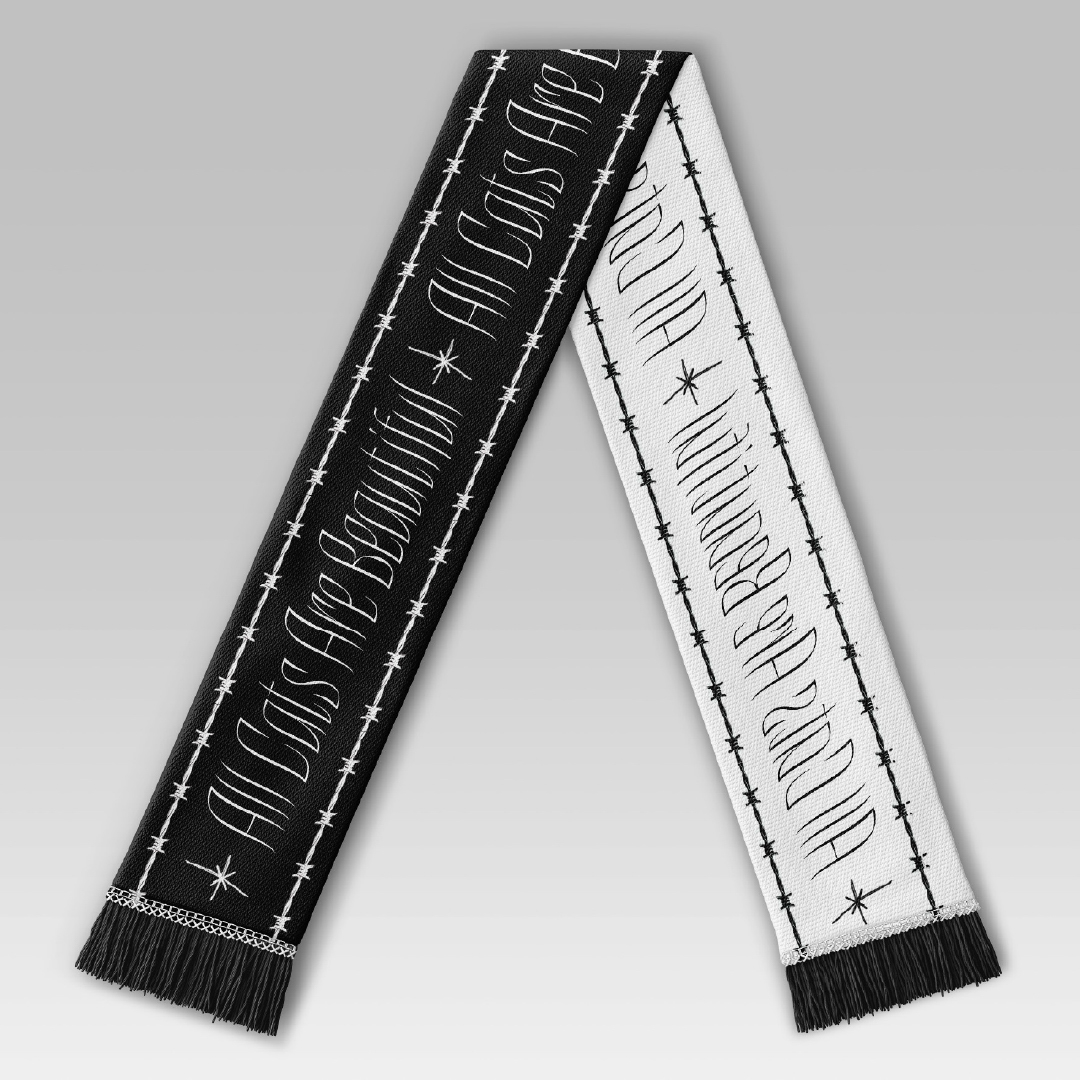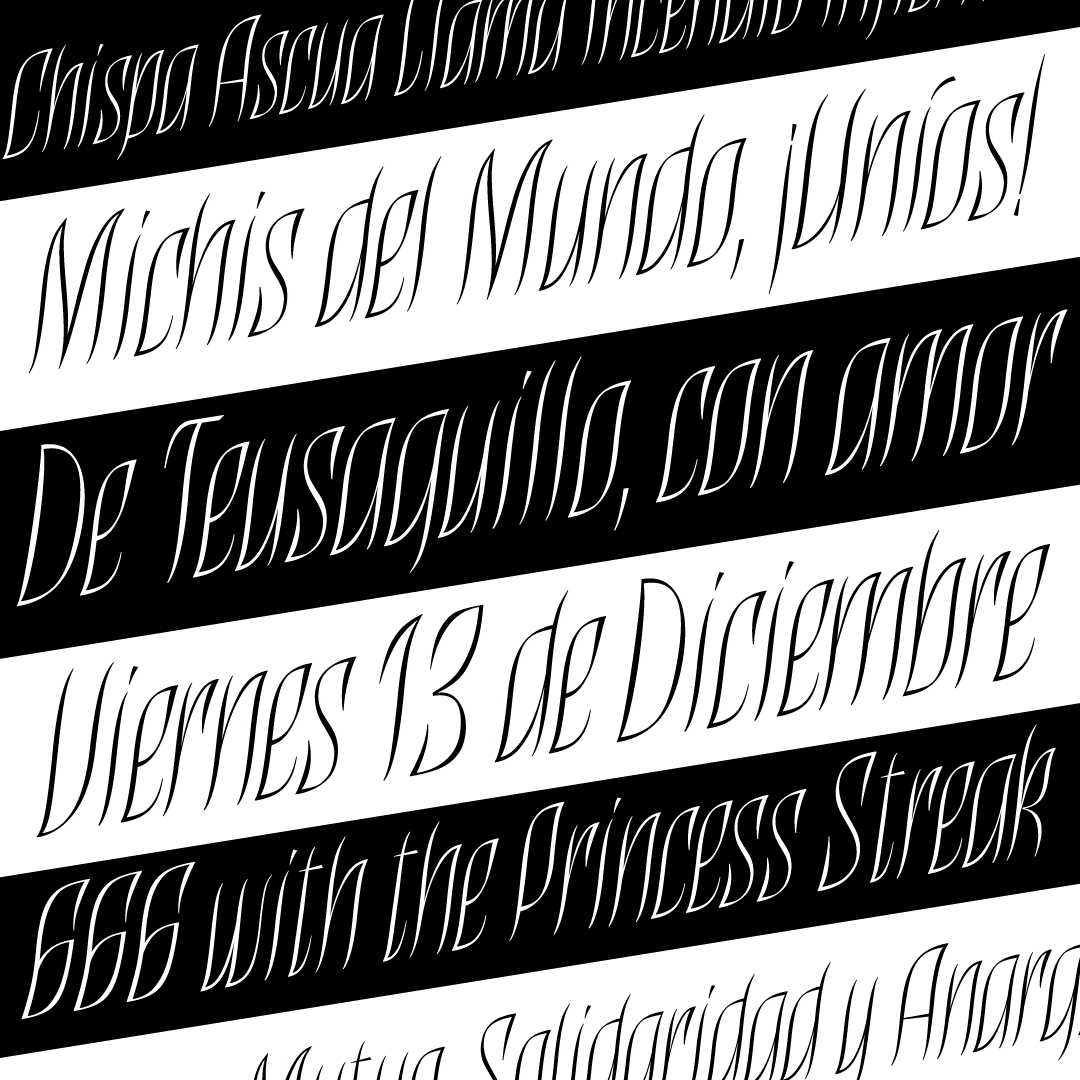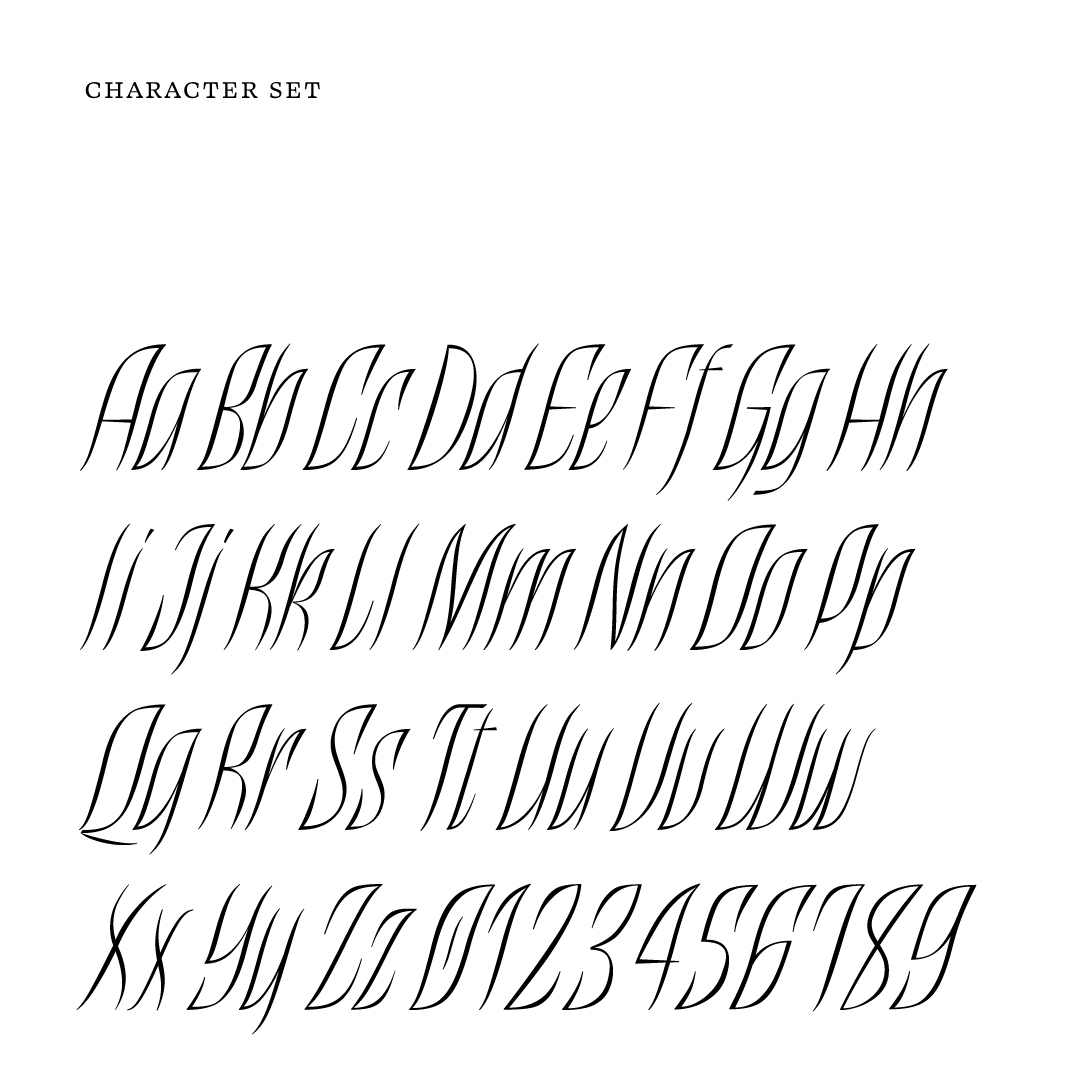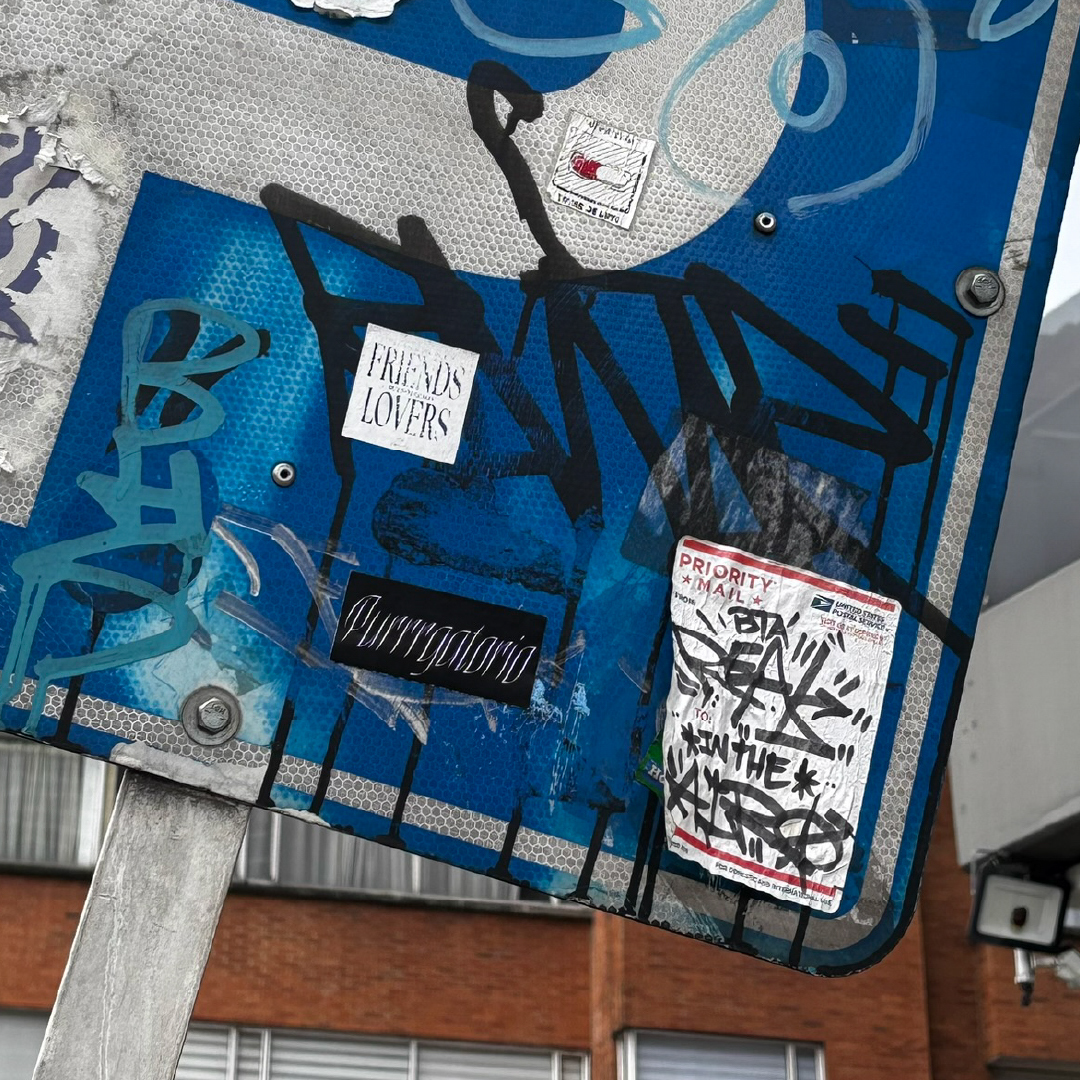
Purrrgatorio is a display typeface for rebel felines who wish to speak truth to power.
Inspired by my cats, my neighborhood, my friends and my ideals, I intended to create a typeface that took me out of my preconceived notions about legibility into a more contemporary, psychedelic and dark visual territory. I hope it can be used in zines, pamphlets, posters, stickers, apparel and many other hegemony-challenging projects.